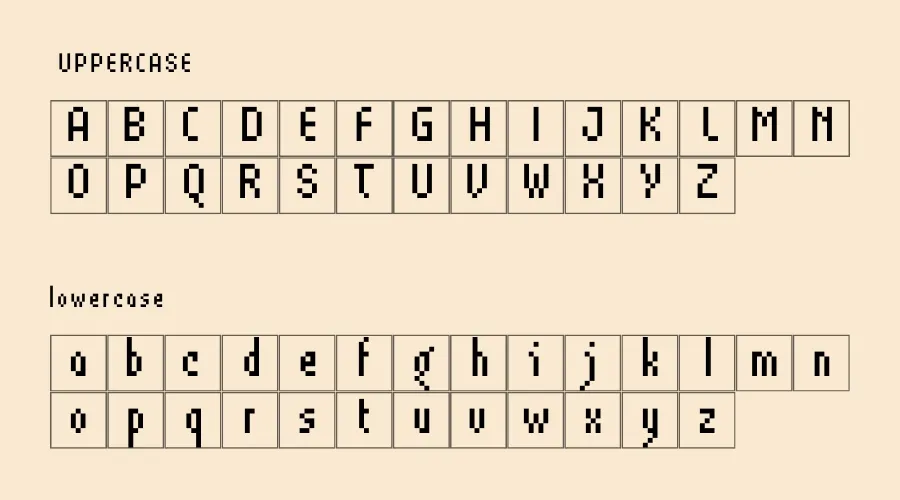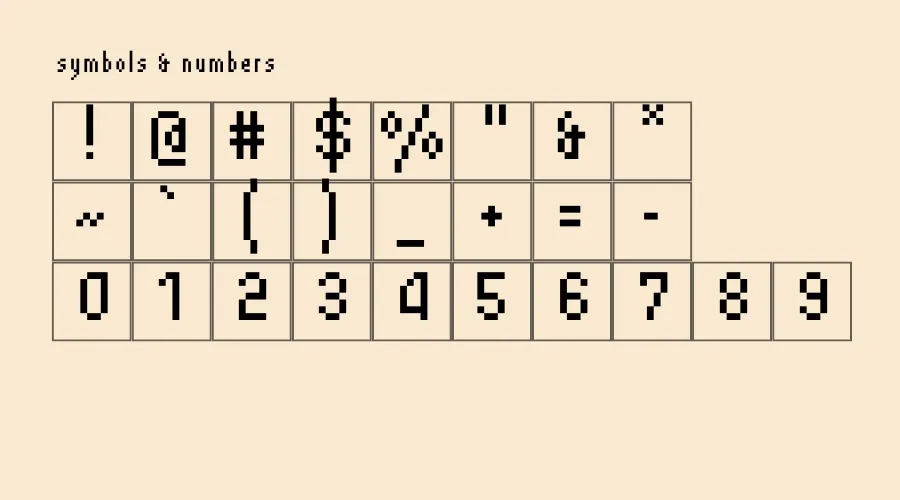
About Lomo Copy Zigg Font
Lomo Copy Zigg Font is created by Linotype it is decorative text style. Using this typeface makes it simple to create stunning tattoos. It may be used to design designs and make banners in addition to printing t-shirts and posters.
By combining them with different typefaces, you may create original designs. Headlines, subtitles, and headers are just a few of the numerous applications for this beautiful font family. With its overall glow, you’ll obtain a textured look.
With this typeface, you’ll have a fantastic feeling. It may be used for a variety of tasks, such as creating postcard, computer game visuals, and website designs. Both a project with a natural theme and one with a vintage feel might benefit from using it.
For shops and retailers, this typeface may be used to make intriguing patterns, covers, names, and logos. Using an online generating tool, you can simply construct this.
This font’s letters serve as an example of its adaptability. Every letter has been produced with total focus and expertise.
As a result, there were no mistakes in its letters. You may make business flyers, logos, and designs using simple and elegant textures to create covers and artwork. On it, web development is also possible.
Style | Decorative |
What Typeface style is Lomo Copy Zigg?
The Lomo Copy Zigg typeface is suitable for many different graphic design projects.